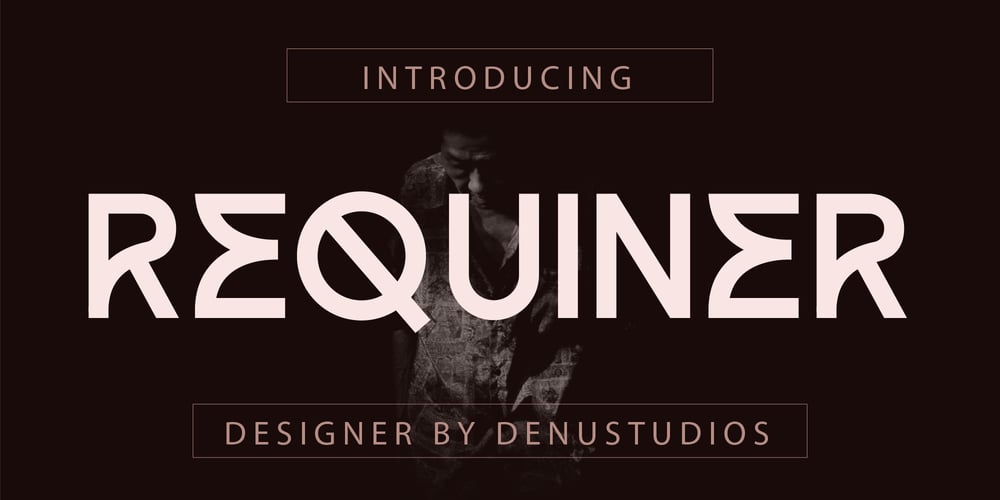
Requiner Font Family was designed by Dede Nugraha and published by Denustudio. Requiner contains 2 styles and family package options. Requiner | Sans Serif Typeface, from Denustudios, suitable for any projects such as: logos, branding projects, homeware designs, product packaging, mugs, quotes, posters, shopping bags, t-shirts, book covers, name card, invitation cards, greeting cards, label, photography, watermark, special events, and all your other lovely projects that need a Modern Sans Serif taste. ===============================================================What’s Included : Regular and Italic Font Web Font Standard glyphs Alternate and Ligature Works on PC & Mac Simple installations Accessible in the Adobe Illustrator, Adobe Photoshop, Adobe InDesign, even work on Microsoft Word and Other Software. PUA Encoded Characters – Fully accessible without additional design software. Fonts include multilingual support Wish you enjoy our font. 🙂